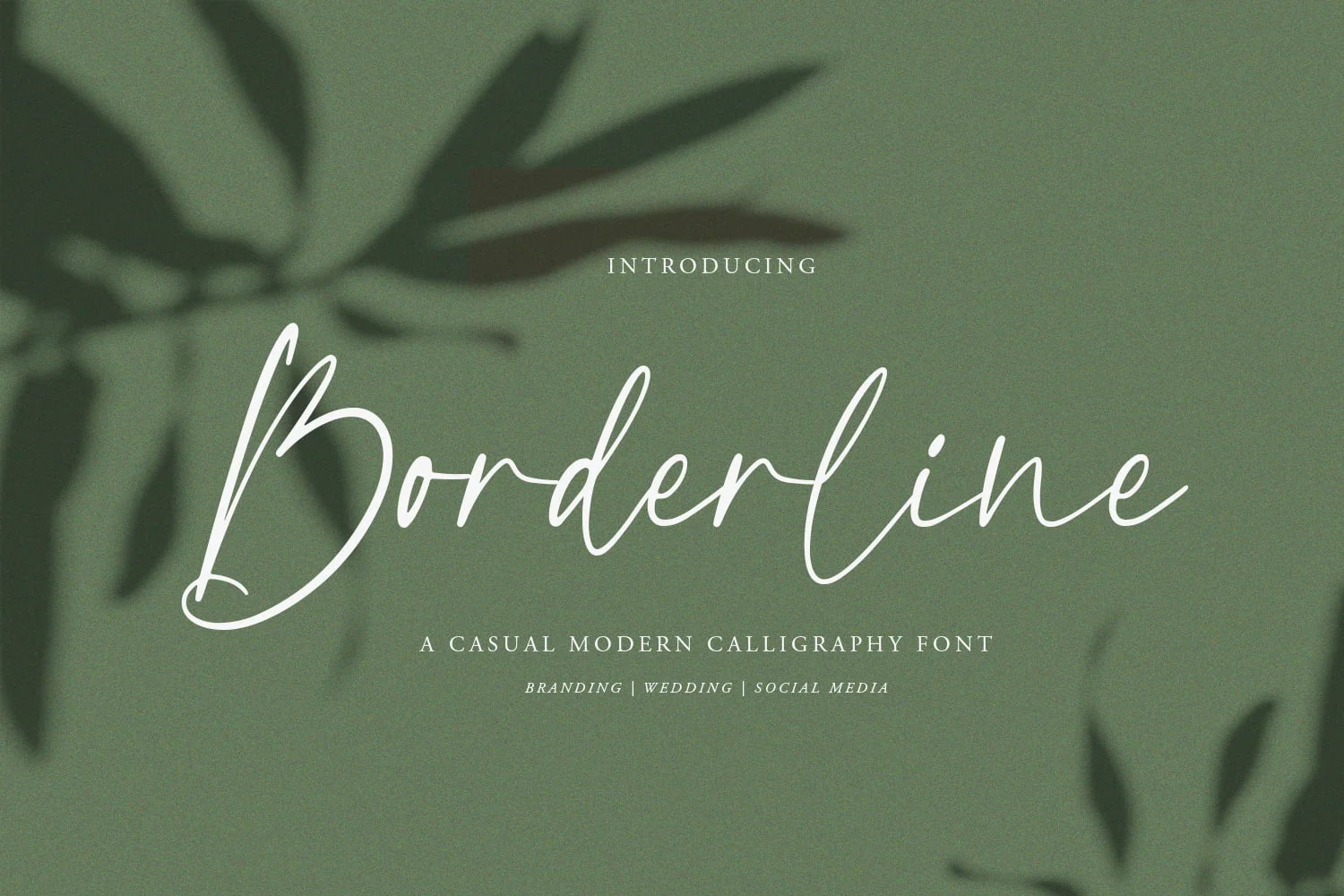
Borderline Regular
Borderline Font is perfect for edgy brand identities, alternative music posters, urban fashion labels, indie magazine layouts, rebellious social media graphics, contemporary art projects, bold advertising campaigns, underground event flyers, modern streetwear designs, and provocative content that challenges conventions and pushes creative boundaries.
This font is exciting because it walks the fine line between refined elegance and rebellious energy, creating letterforms that feel both sophisticated and daring. The distinctive character design captures the tension and intensity of pushing boundaries while maintaining professional readability, making it ideal for projects that need to stand out and make bold statements without sacrificing visual clarity.
The Borderline Font family typically includes uppercase and lowercase characters, numerals, punctuation marks, special symbols, stylistic alternates, and expressive glyphs that enable designers to create compelling compositions with attitude and contemporary edge.
Whether you're designing for alternative brands, creating bold artistic content, or developing marketing materials for businesses that value authenticity and creative courage, Borderline Font Free Download provides the perfect typographic voice for boundary-pushing communication. Its distinctive character and rebellious sophistication make every project feel more daring and memorable, ensuring your designs effectively convey confidence, creativity, and the fearless innovation that separates leaders from followers in today's competitive creative landscape.